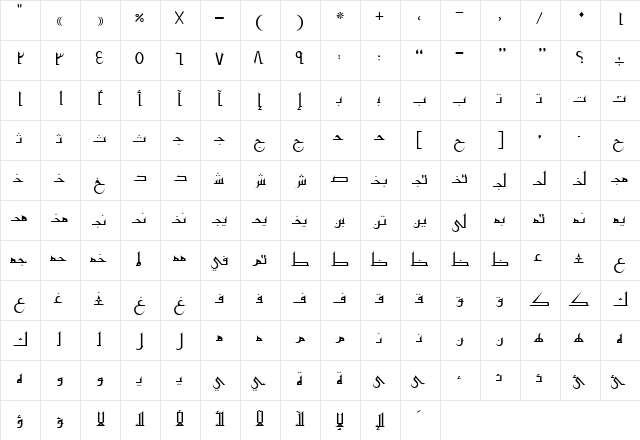
New_5 Normal
Design Context for New_5 Typeface
New_5 is a composed and adaptable typeface that performs quietly and consistently across a wide range of design contexts.